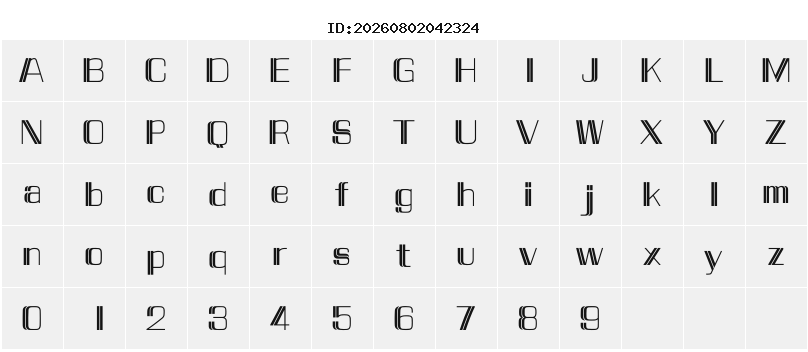
• Font Name: MStream HKS Bold
• Manufacturer: Monotype Imaging Inc.
About MStream HKS Bold.ttf
MStream HKS Bold.ttf is a modern, elegant sans-serif font designed for ultimate readability and visual harmony. Perfect for branding, headlines, web design, and print materials.